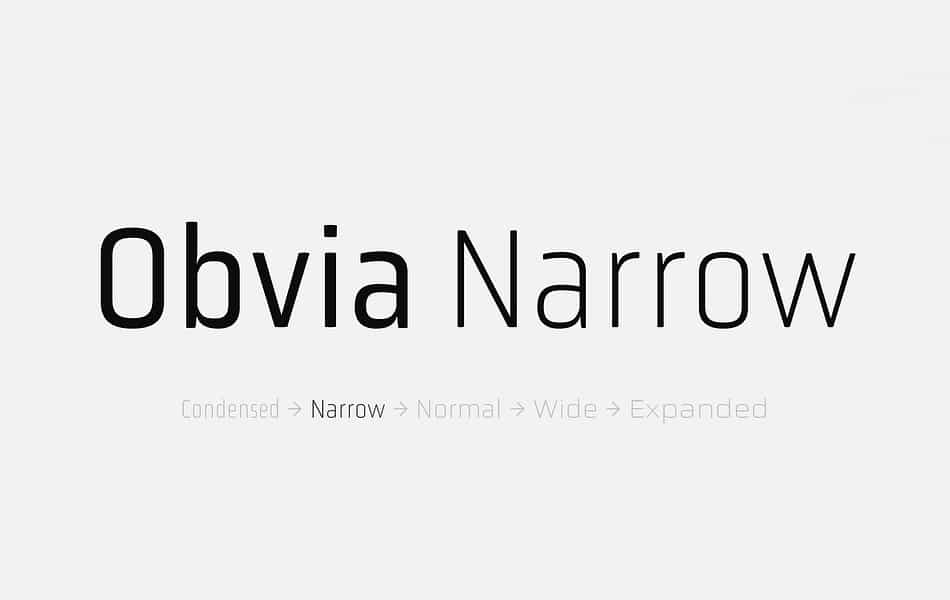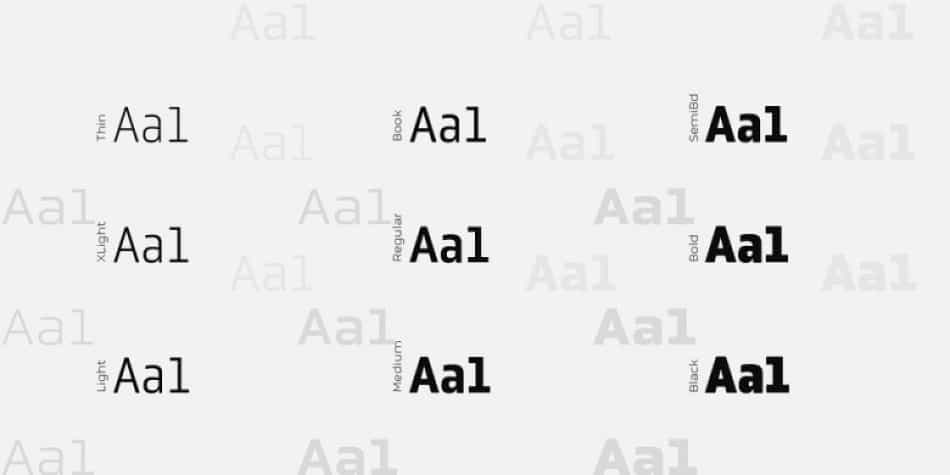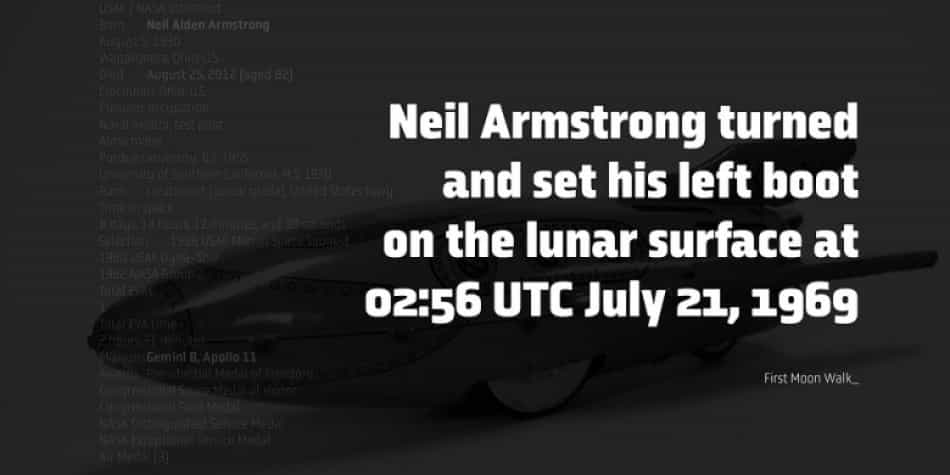
“Obvia” emerged through direct observation of geometric typefaces and an initial exploration of three width axes – Normal, Narrow Wide and Expanded – within each condensed typeface width axis: condensed Normal Wide Expanded. The purpose behind its creation was to break free from geometrically pure forms – specifically square geometric forms – by breaking up these straight axes using diagonals instead.